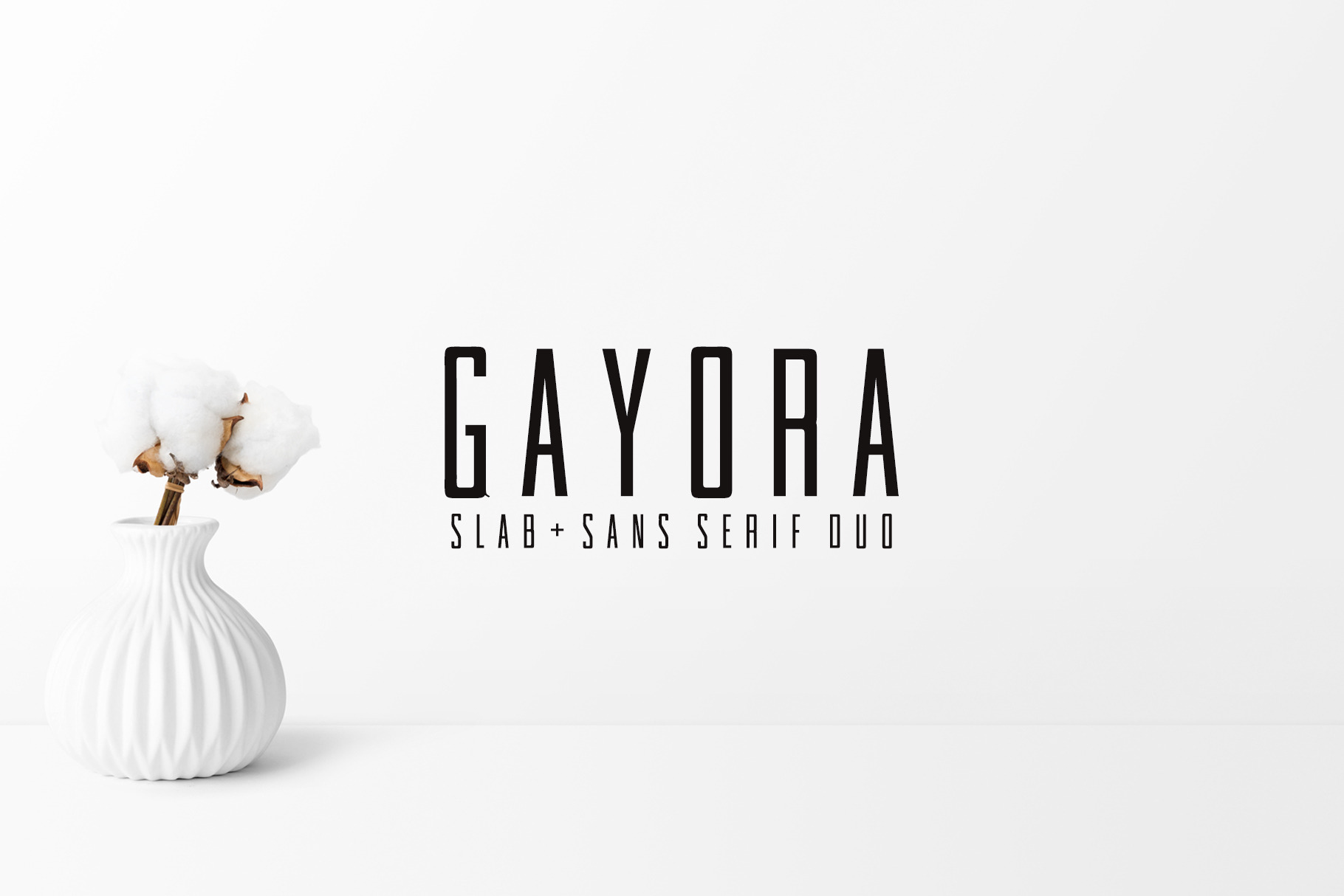
Gayora Slab Serif | Duo Font
Gayora Duo is a clean, vibrant minimal (sans and slab) serif font. This font has a strong personality, that makes it perfect for use in the headline, wedding invitation, greeting cards, T-shirt, branding & logo projects, merchandise, social media posts, product packaging, or any design that you create.
Included Features:
- Font Weight: Regular, Thin and Outline
Gayora Font Features:
- Uppercase Multilingual Letters
- Lowercase Multilingual Letters
- Non English Characters ( Latin Supplement + Latin Extended A )
Included Features:
- Font Weight: Regular, Thin, Light and Outline